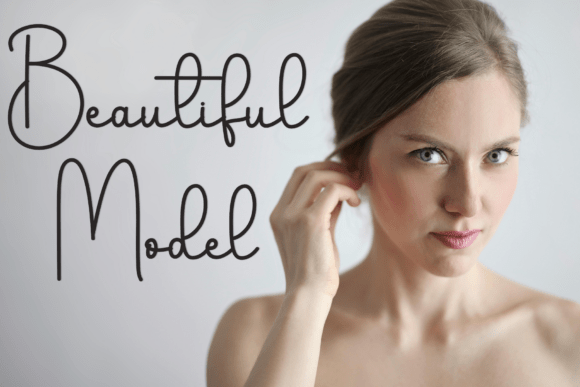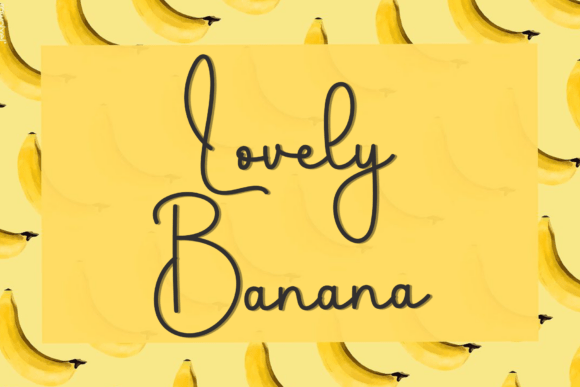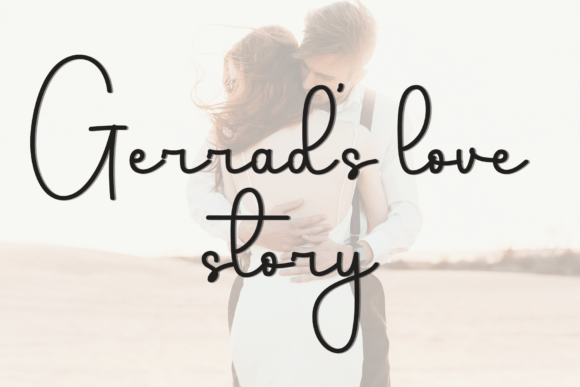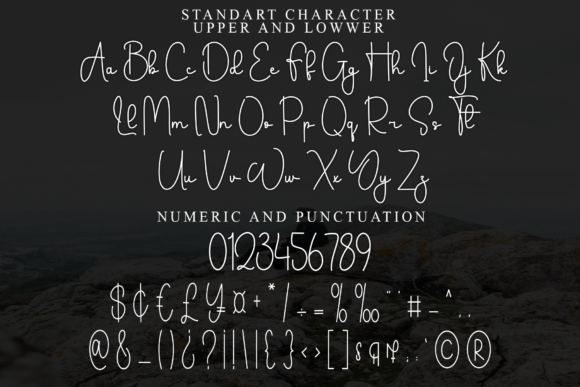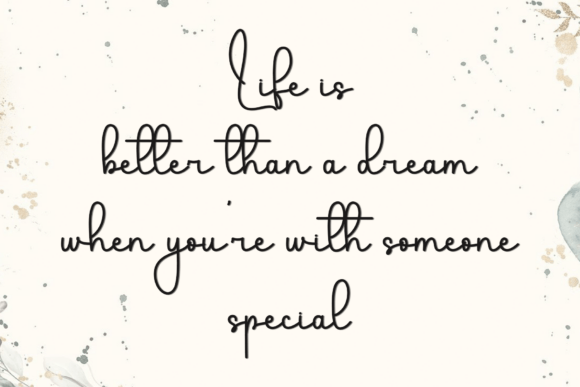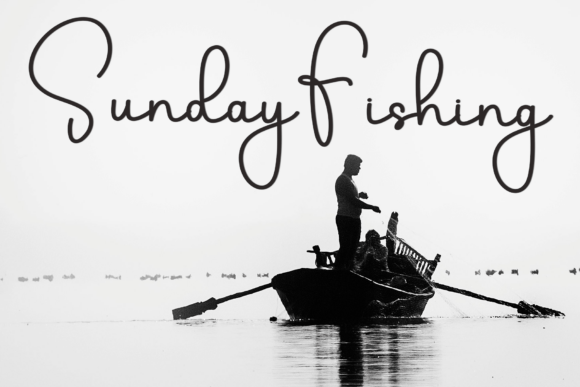
Discover the Charm of Charlotte Font: Elevate Your Designs with its Unique Touch
In the world of typography, fonts play a crucial role in making or breaking the visual appeal of a design project. Among the numerous fonts available, Charlotte Font stands out for its soft, unique touch and distinctive strokes that give it a special character. This beautiful and eye-catching font is designed to make your designs more meaningful and versatile, making it perfect for a wide range of creative projects.
The Unique Features of Charlotte Font
Charlotte Font boasts a range of unique features that set it apart from other fonts. Its soft and delicate strokes give it a feminine touch, making it ideal for designs that require a subtle yet elegant feel. The font’s distinctive character set includes various characters that can be used to add a personal touch to your designs. Whether you’re working on a logo, brochure, or website, Charlotte Font is sure to make your project stand out.
Versatility at its Best
One of the key benefits of Charlotte Font is its versatility. This font can be used across various design projects, including crafts, illustrations, and other creative works. Its natural font style makes it perfect for designs that require a personal touch, such as handmade cards, invitations, and DIY projects. Additionally, Charlotte Font is compatible with various applications, including Windows and open-source platforms, making it easy to integrate into your workflow.
Charlotte Font is a dream come true for designers and crafters who are looking for a font that can elevate their designs and add a personal touch. The font’s unique features and versatility make it an ideal choice for a wide range of projects, from graphic design and branding to crafting and DIY projects. With Charlotte Font, you can create stunning designs that appeal to a wide range of audiences across different artistic and creative fields.
Key Benefits of Using Charlotte Font
- Unique and eye-catching design: Charlotte Font’s soft and delicate strokes give it a distinctive character that sets it apart from other fonts.
- Perfect for design projects and crafts: Charlotte Font is ideal for a wide range of projects, from graphic design and branding to crafting and DIY projects.
- Natural font style: The font’s natural style makes it perfect for designs that require a personal touch.
Tips for Getting the Most Out of Charlotte Font
To get the most out of Charlotte Font, here are a few tips:
- Experiment with different sizes and colors: Charlotte Font looks great in a variety of sizes and colors, so don’t be afraid to experiment and find the perfect combination for your design.
- Pair it with other fonts: Charlotte Font pairs well with other fonts, so try combining it with other fonts to create a unique and eye-catching design.
- Use it in combination with images: Charlotte Font looks great in combination with images, so try using it to add a personal touch to your designs.
Charlotte Font is a beautiful and eye-catching font that is perfect for designers and crafters who are looking for a unique and versatile font to elevate their designs. With its soft and delicate strokes, distinctive character set, and compatibility with various applications, Charlotte Font is an ideal choice for a wide range of creative projects. Whether you’re working on a logo, brochure, or website, Charlotte Font is sure to make your project stand out.